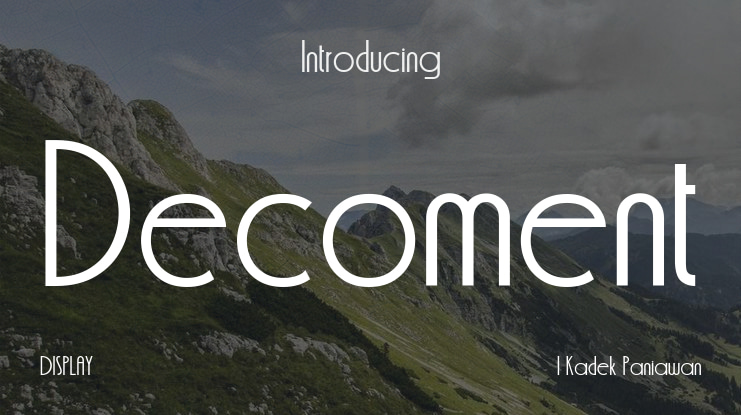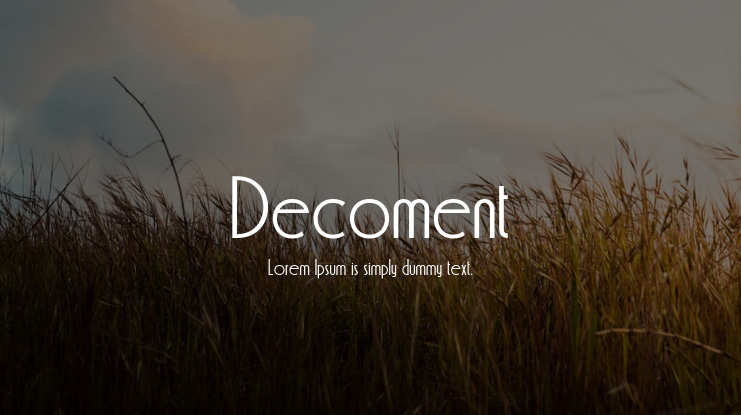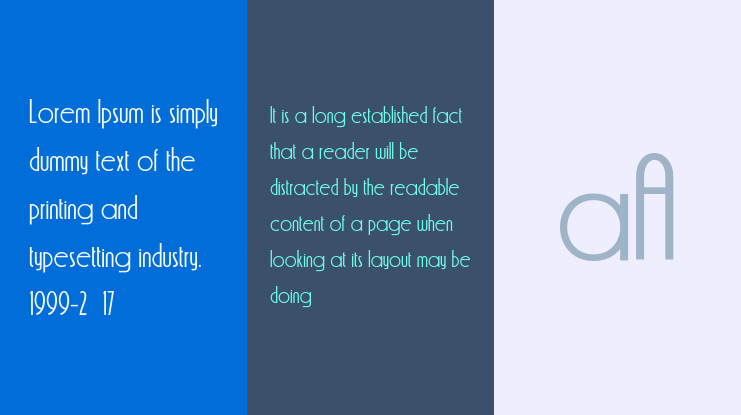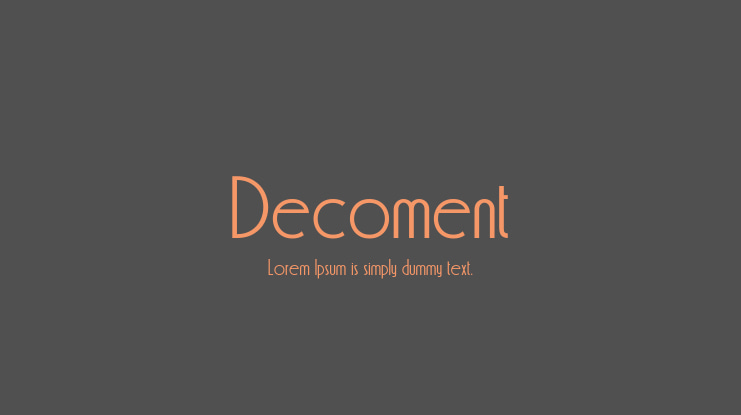
Decoment Font
**Decoment Typeface – A Timeless Art Deco Elegance**
Elevate your design projects with the Decoment Typeface, a stunning font inspired by the bold and sophisticated aesthetics of the Art Deco era. Perfectly blending vintage charm with contemporary versatility, this typeface is a must-have for anyone looking to add a touch of luxury and uniqueness to their designs.